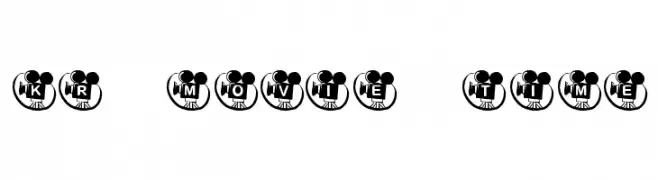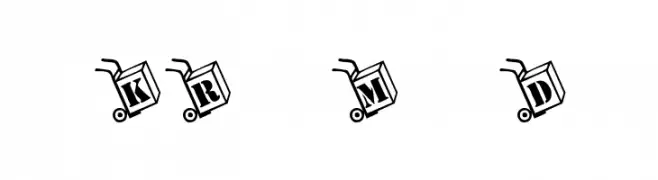
• KR Morning Must!
A whimsical font with characters inside steaming coffee cups, perfect for creative designs.
• KR Morning Must!
A playful font with characters inside steaming coffee cups, ideal for cozy and warm designs.
• KR Mother's Day Dings
A decorative font with Mother's Day-themed designs and playful elements.
• KR Movie Time
A decorative font with characters enclosed in film reel emblems, ideal for cinema-themed designs.
• KR Movie Time
A playful, film-themed font with bold, rounded characters encased in camera motif badges.
• KR Moving Day
A playful font with letters on hand trucks, perfect for dynamic and fun designs.
• KR Moving Day
A playful font with letters inside hand trucks, suggesting movement.
• KR Mr. Bunny
A whimsical font with bold letters and a bunny illustration beside each character.
• KR Mr. Bunny
A playful font with bold letters encased in circles, accompanied by bunny illustrations.